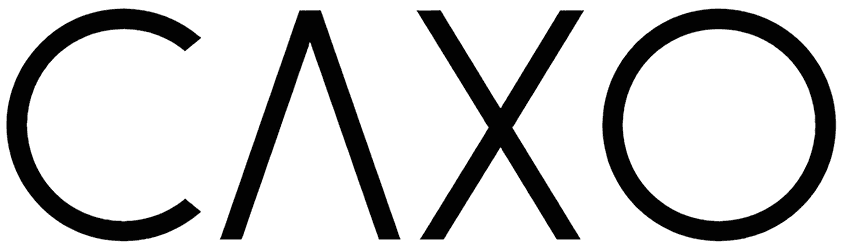
Caxo Font
Surely, anyone has heard that attractiveness drops off with simple design. Here, we are offering a modern minimalist font with a trendy effect, as if it’s trying to show its smart, techno identity to all of us.
The digital design of the Caxo font with steady characters comes closer to giving you the potential to pour it into your upcoming performance and enhance your apps, games, websites, or more without any attention to its lowercase lacking.